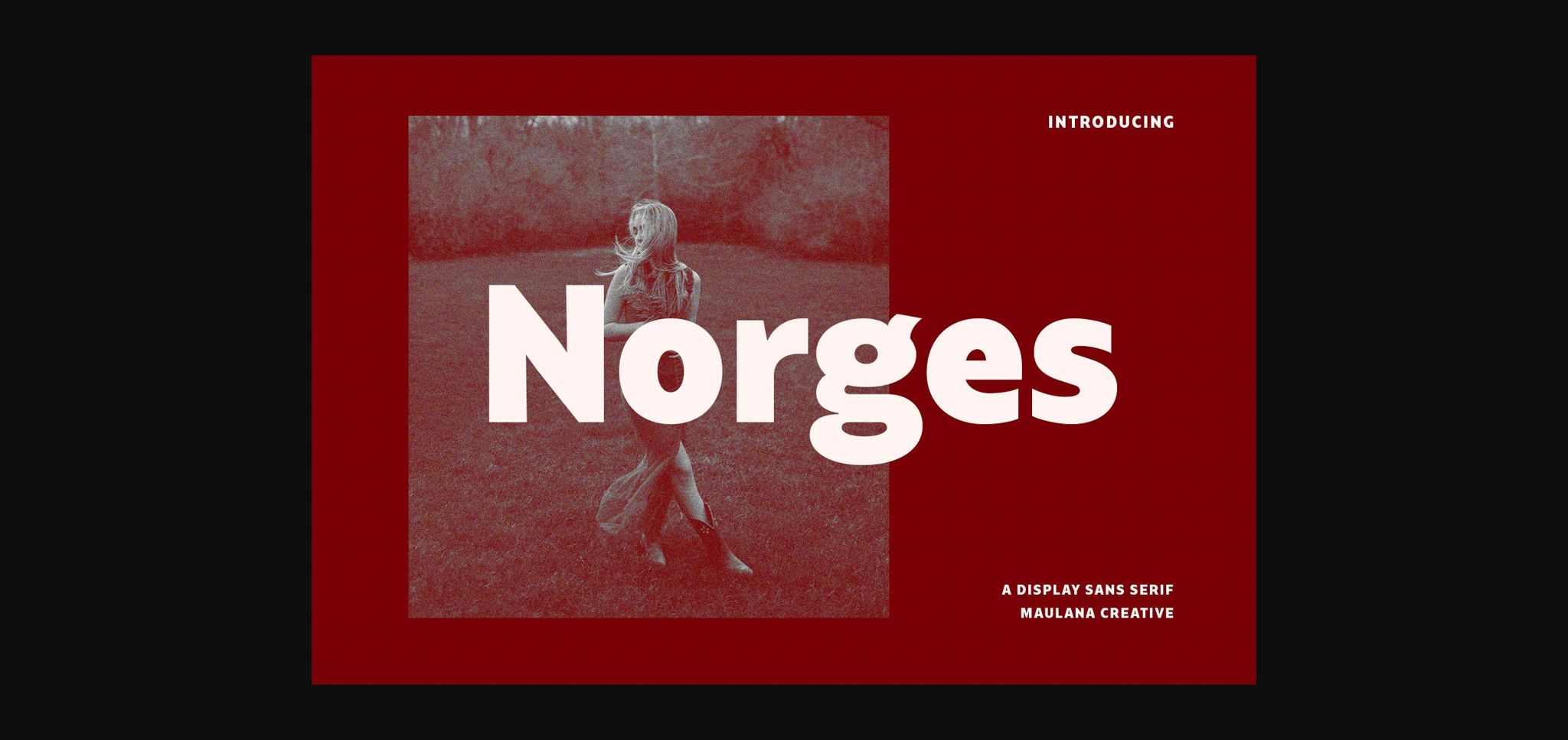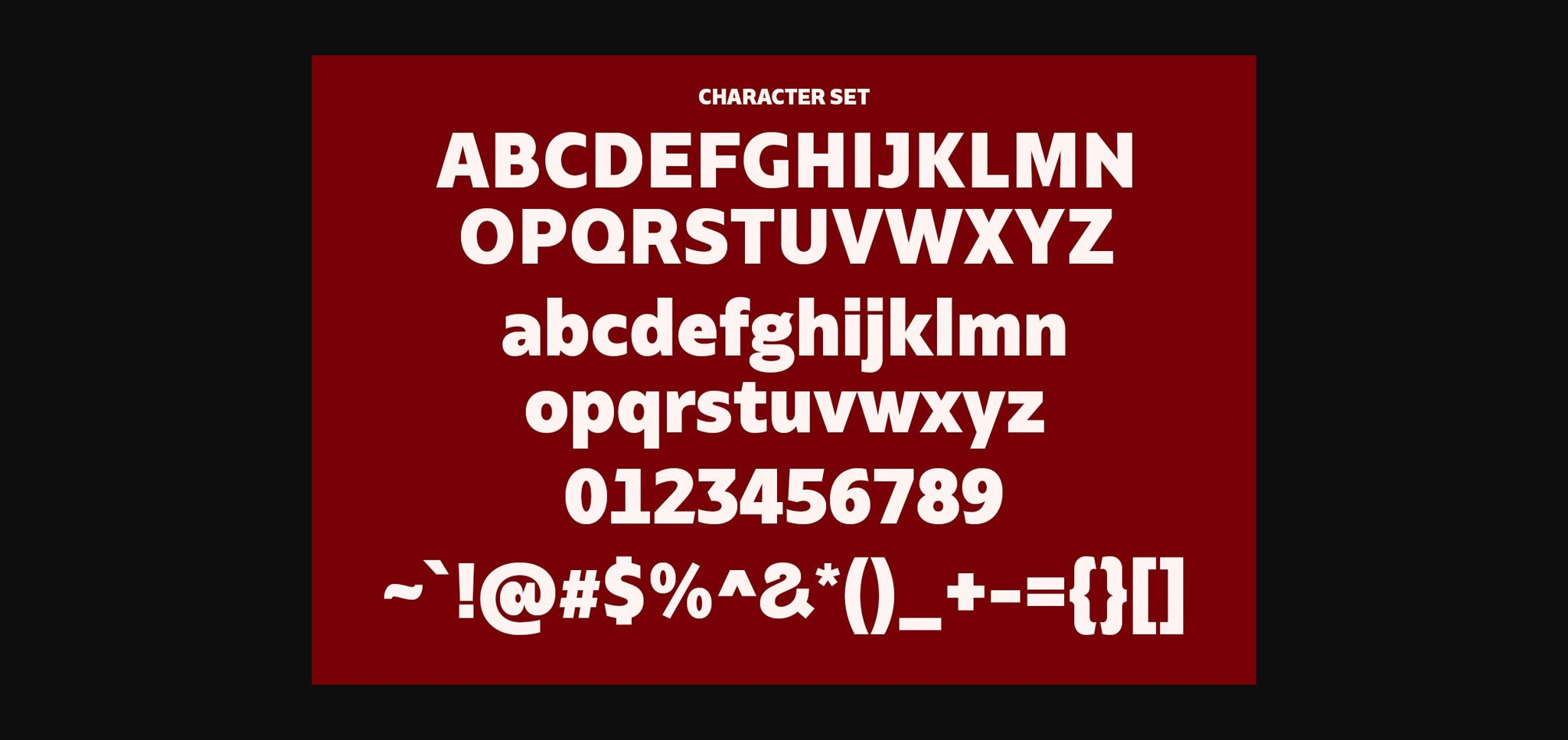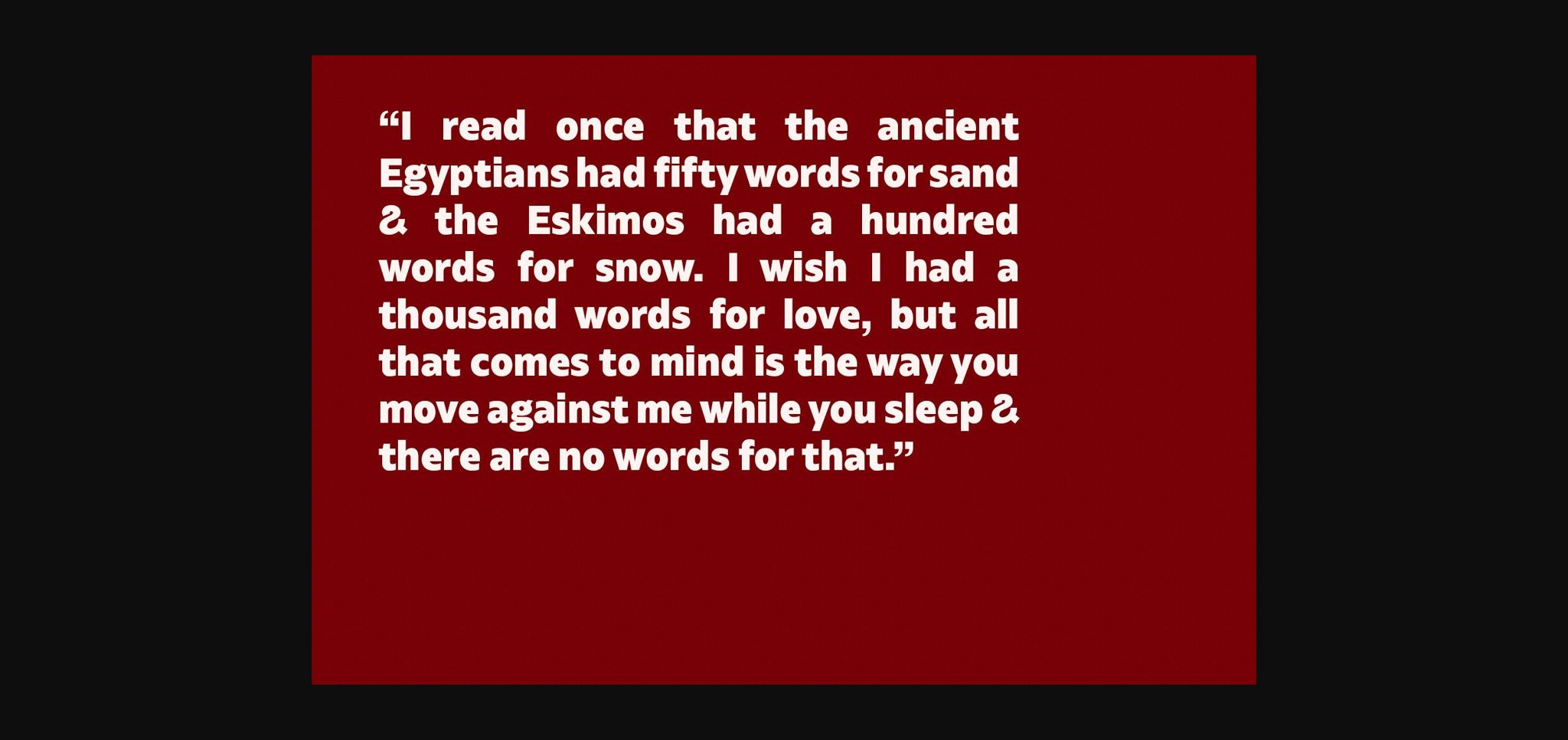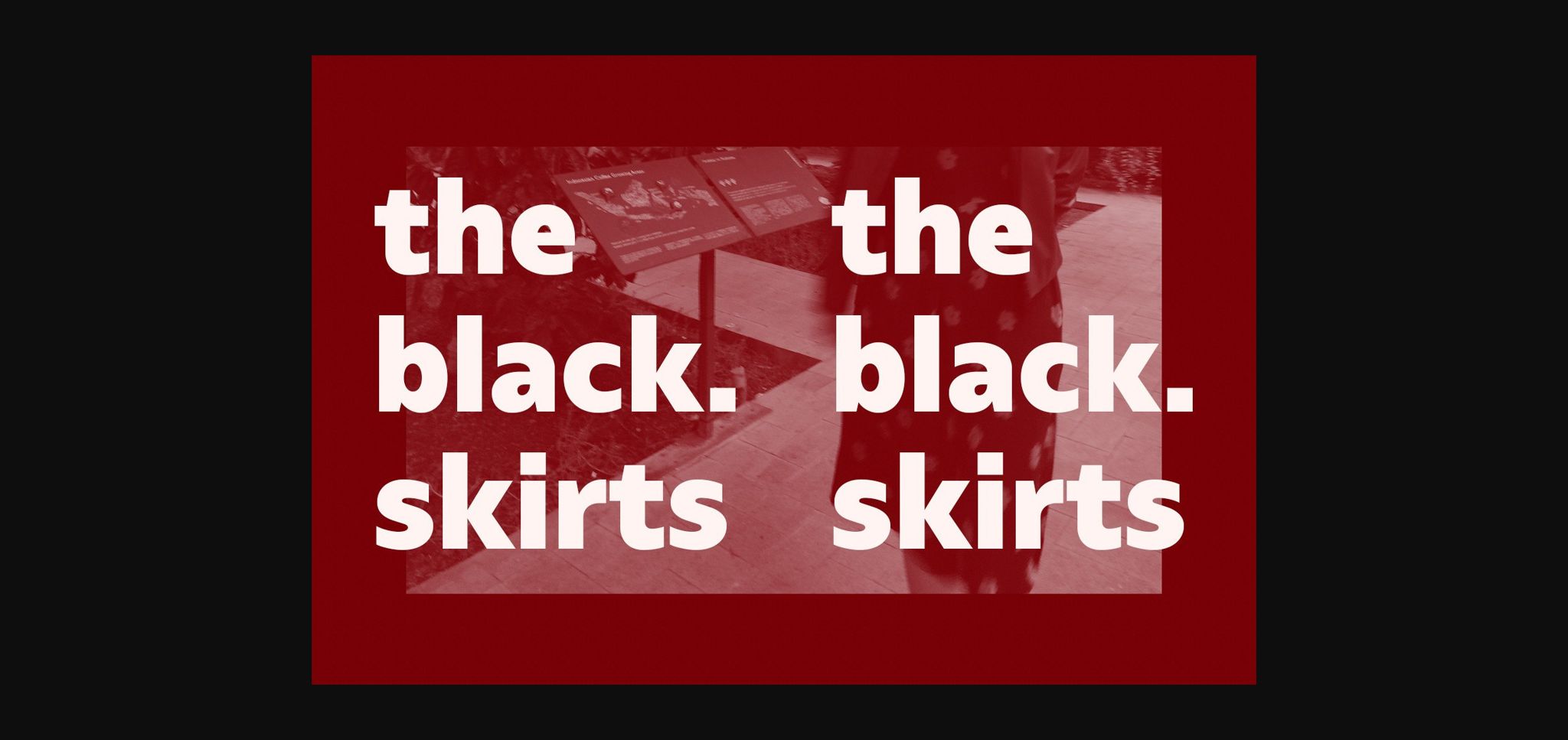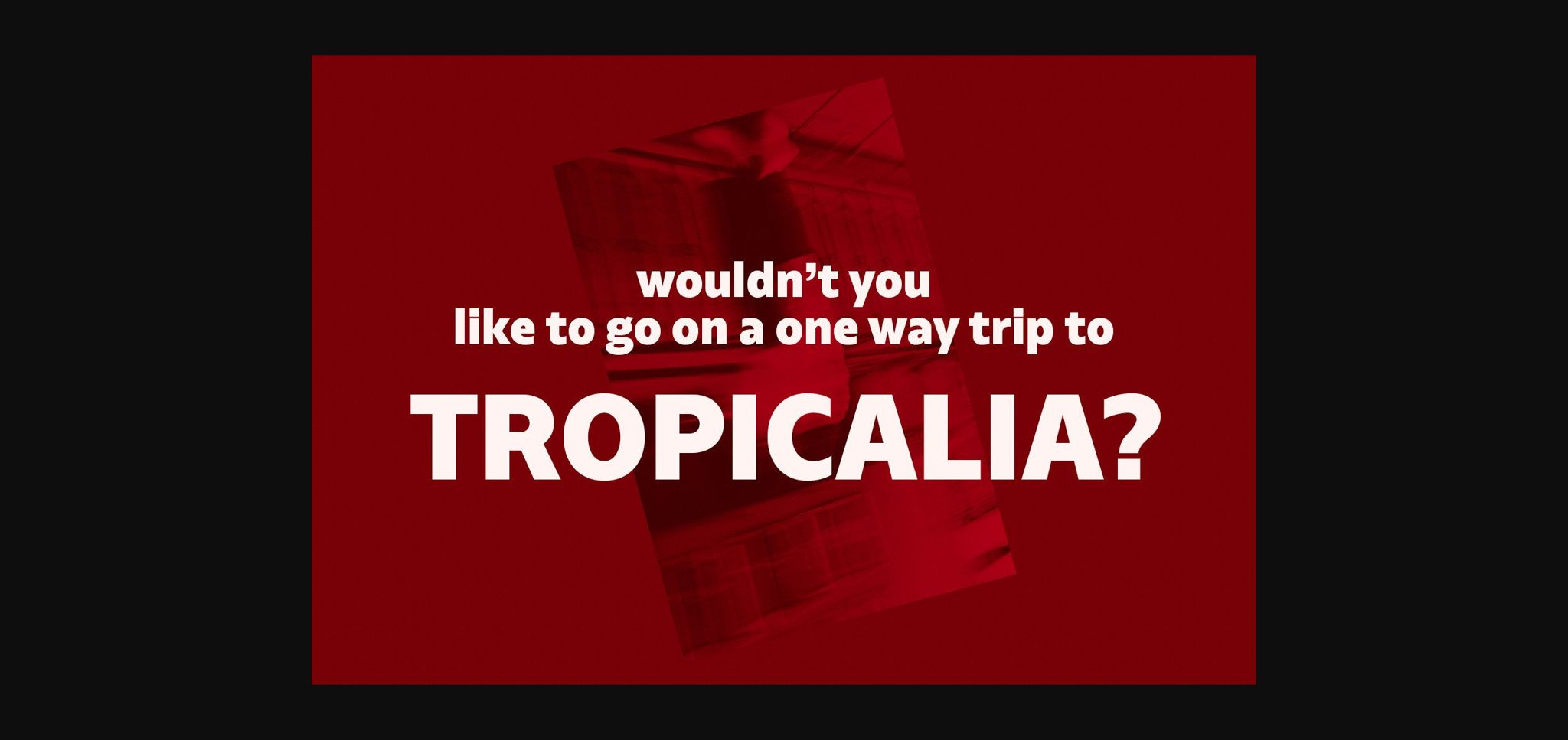
About Norges Font
Norges is a contemporary sans serif font with a bold stroke, fun character with a bit of ligature, and alternate to give you extra creative work. Norges is good for logo design, social media, book titles, short text, and long text. It is also good for your secondary text, together with a serif. Make stunning work with Norges font!